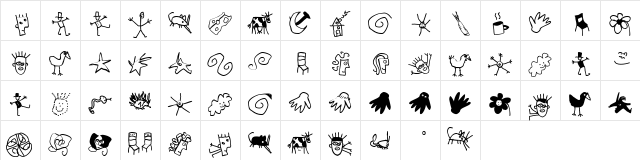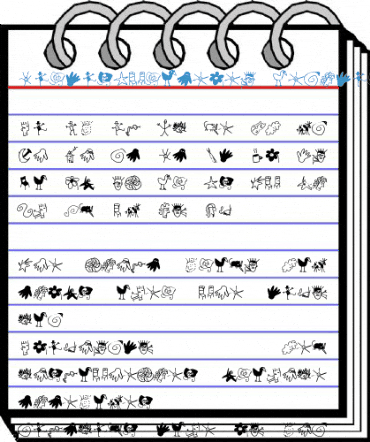
KarlasStrokemen Regular Free Font
KarlasStrokemen Regular
Design Context for KarlasStrokemen
KarlasStrokemen is a composed and adaptable typeface that performs quietly and consistently across a wide range of design contexts.